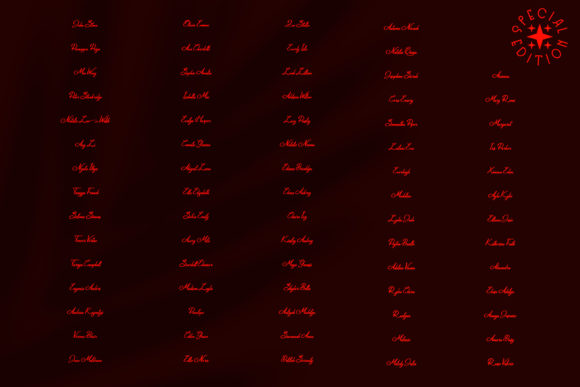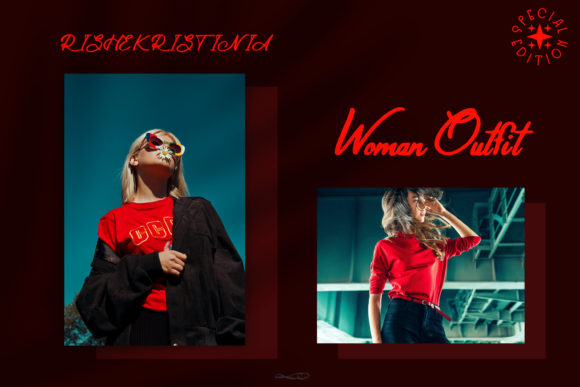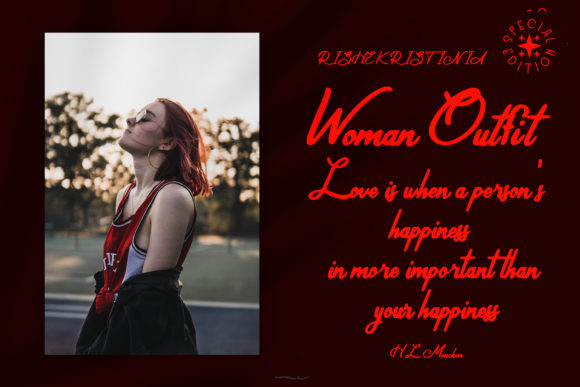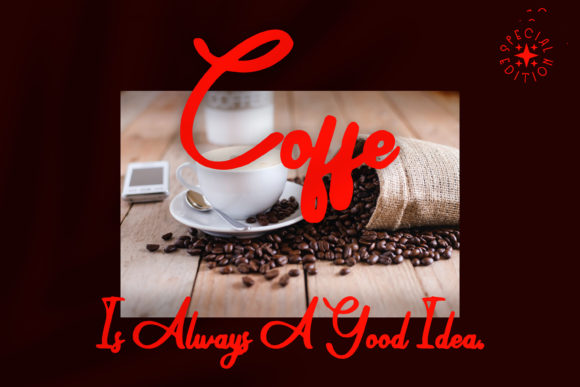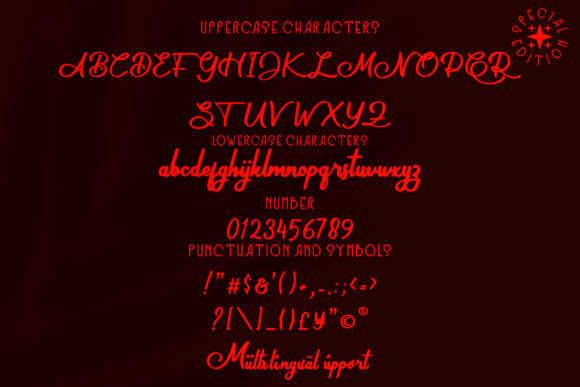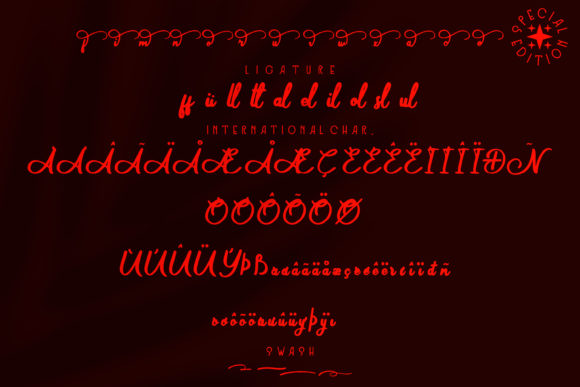
The Designer’s Delight: Anindya Font
I’ll never forget the time I was working on a luxury branding project for a high-end homeware client. I had spent hours perfecting the logo design, but something felt off. The font I had chosen just didn’t have the sophistication and elegance the brand required. That’s when I stumbled upon the Anindya font, and it completely transformed the project. In this article, I’ll share my experience with this beautiful handwritten font and provide a comprehensive guide on how to make the most of it.
I’ve had the pleasure of working with Anindya font on several projects, and here’s what I love about it:
• ✨ Elegant and sophisticated: Anindya font exudes luxury and refinement, making it perfect for high-end projects.
• ✅ Versatile: This font can be used for a wide range of applications, from logos and branding to product packaging and more.
• 💫 Unique character: Anindya font has a distinct personality that sets it apart from other handwritten fonts.
While Anindya font is exceptional, there are a few quirks to be aware of:
• ⚠️ Limited availability: Anindya font might not be as widely available as other fonts, but it’s worth the search.
• 🤔 Occasional kerning issues: As with any font, you might encounter kerning issues, but these can be easily adjusted in most design software.
The Designer Inspiration Behind Anindya Font
Anindya font was designed with the intention of creating a luxurious and elegant handwritten font. The designer aimed to craft a font that would evoke a sense of sophistication and refinement, making it perfect for high-end branding and luxury projects. While the designer’s background is unclear, it’s evident that they drew inspiration from classic calligraphy and elegant handwriting.
What type of projects is Anindya font suitable for? Anindya font is suitable for a wide range of projects, including logos, branding, product packaging, homeware designs, and more.
Is Anindya font easy to read? Yes, Anindya font is designed to be elegant and legible, making it easy to read in various contexts.